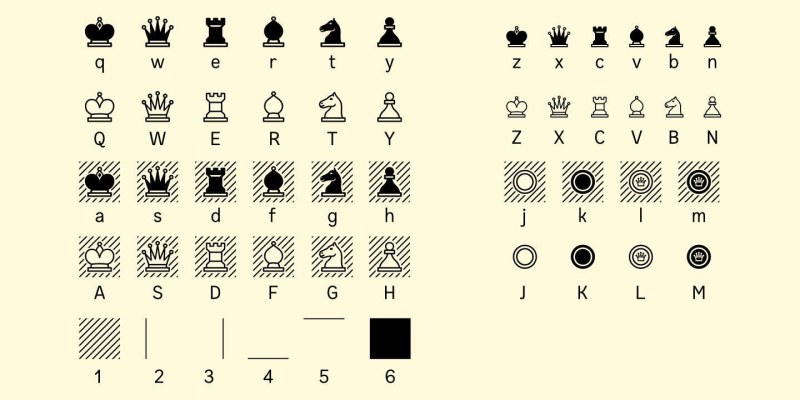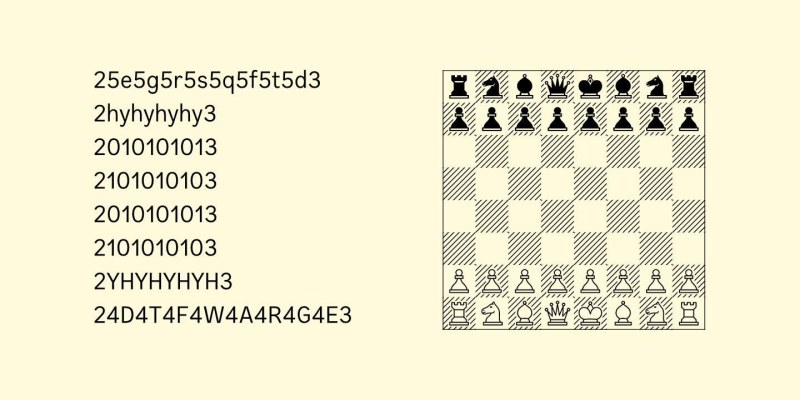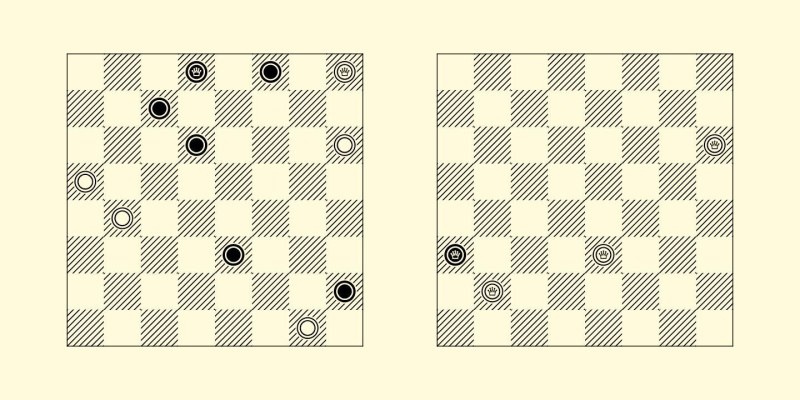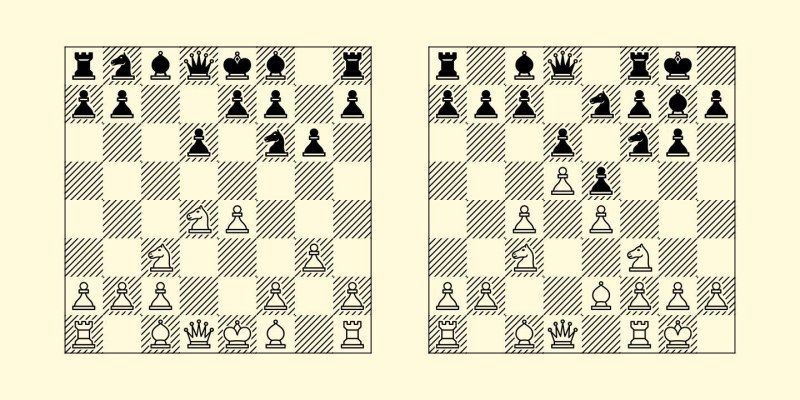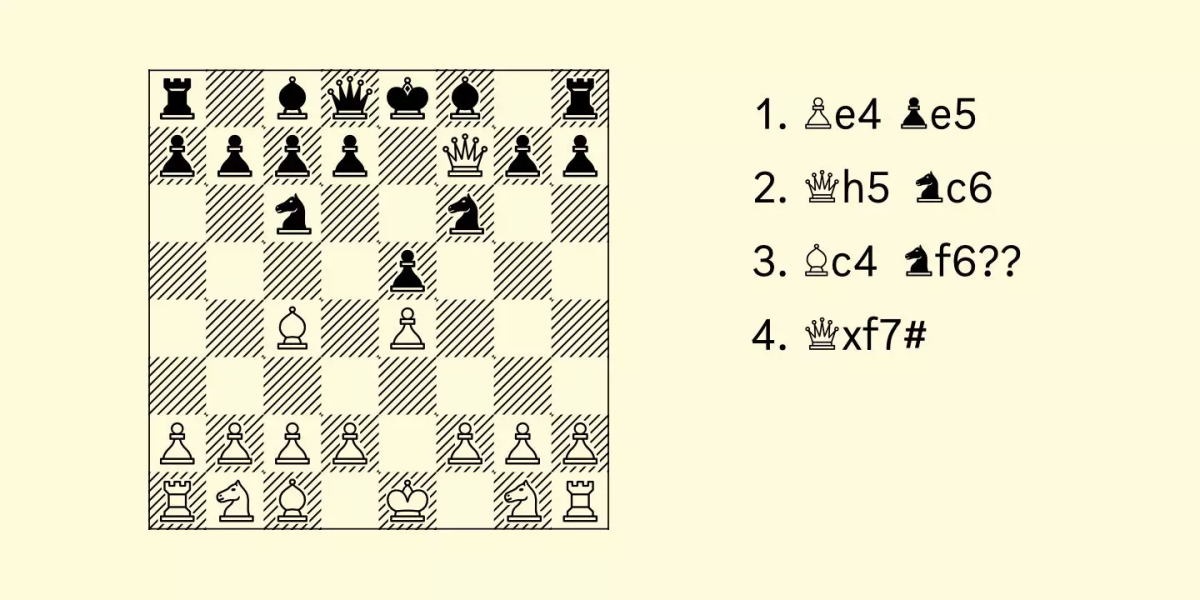
Chessnota Font
Chessnota is a font suitable for the design of chess schemes. It includes original graphic images of chess pieces as well as checkers. Smaller pieces are placed at the level of the text string in order to replace letters in chess notation. It can be used for printing of chess magazines, books, in any design of schemes on websites.
Chessnota Font is a Decorative Fonts font that brings a professional and versatile look to your projects. Chessnota is a font suitable for the design of chess schemes.